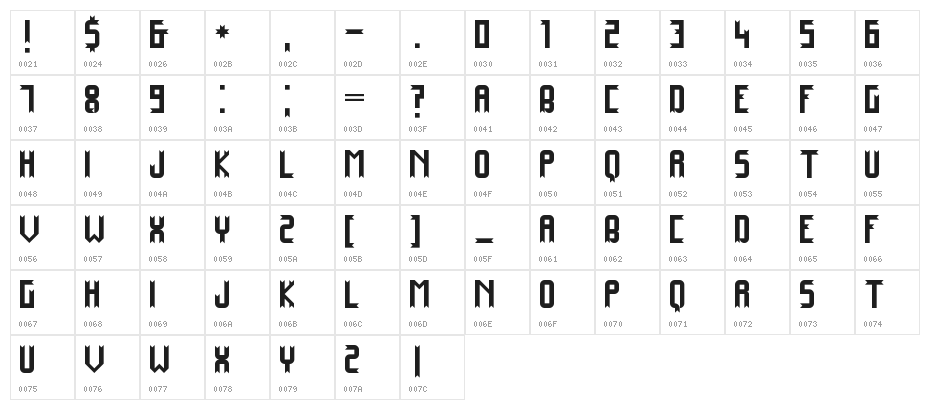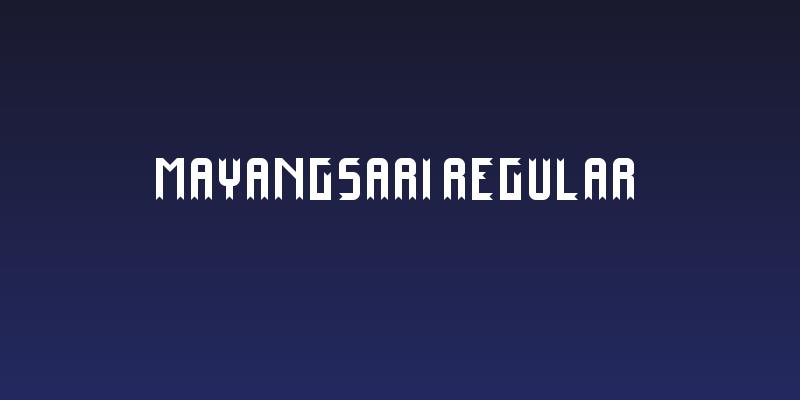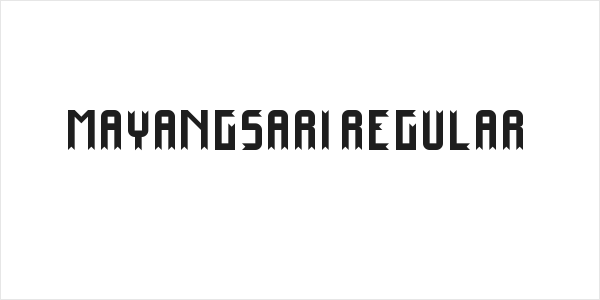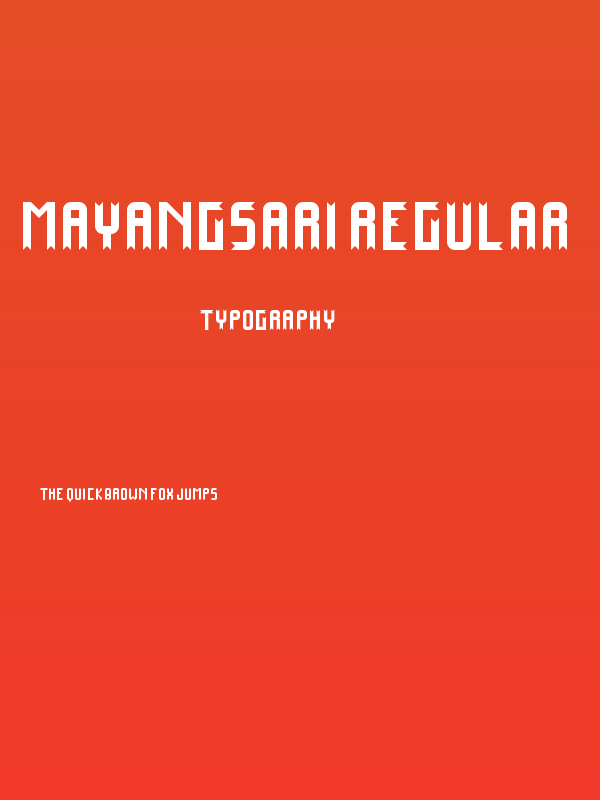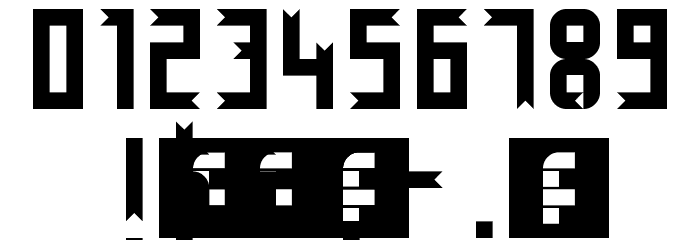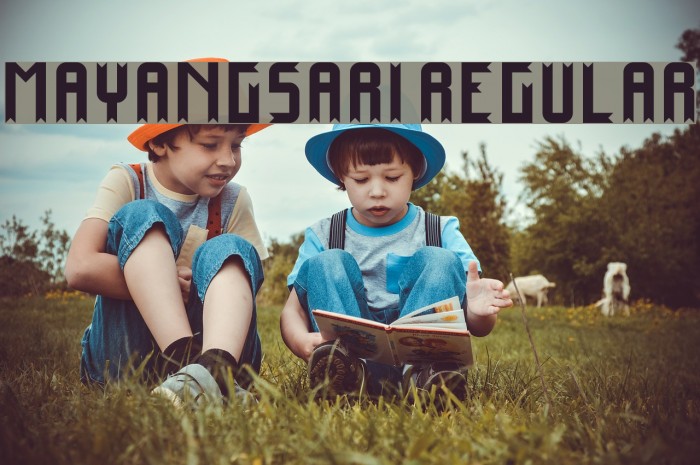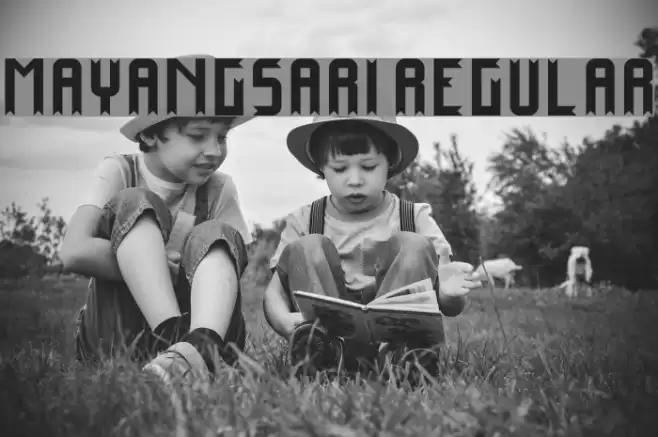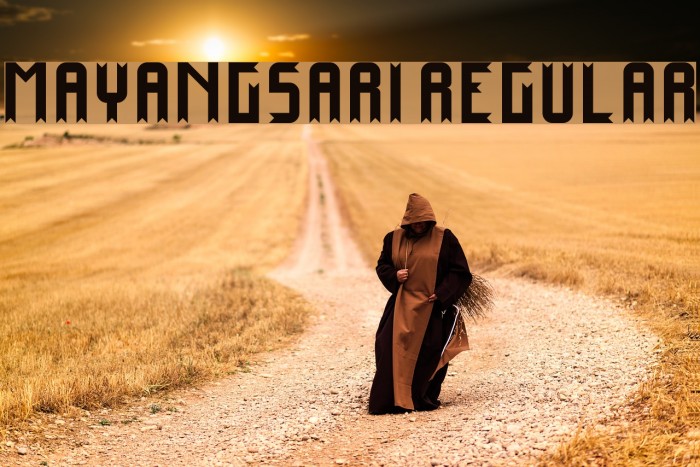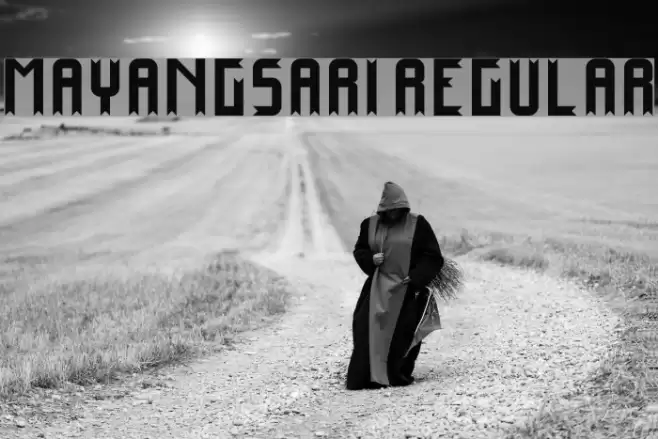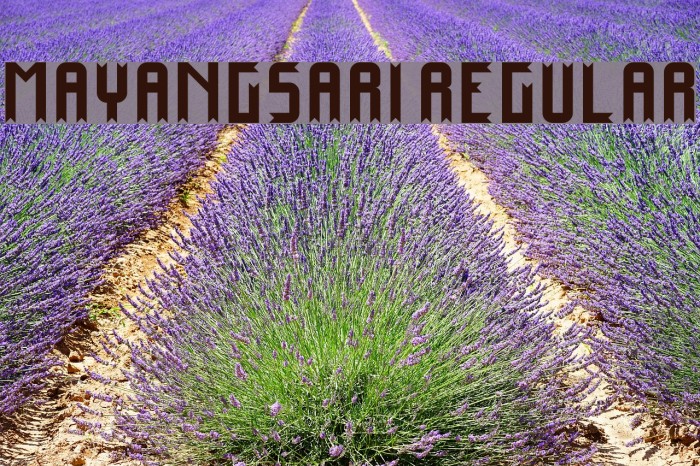
Mayangsari Regular Font
Mayangsari Regular Description
This font features a bold, geometric design with sharp, angular edges and a distinct, modern aesthetic. The characters are constructed with a unique combination of straight lines and pointed elements, giving it a dynamic and edgy appearance. The uppercase and lowercase letters maintain a consistent style, with a strong emphasis on vertical and horizontal strokes. The numbers and special characters follow the same design principles, ensuring a cohesive look across all elements. This font's striking appearance makes it ideal for projects that require a bold statement.